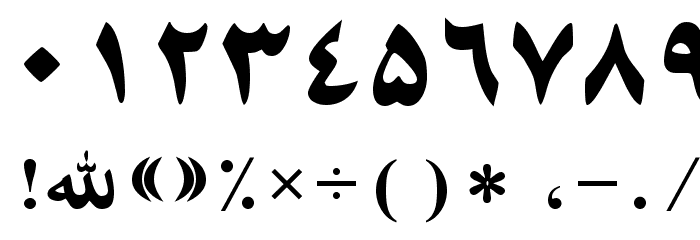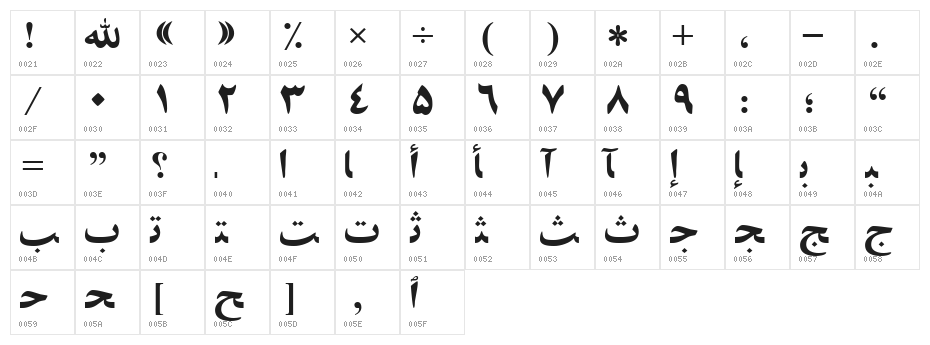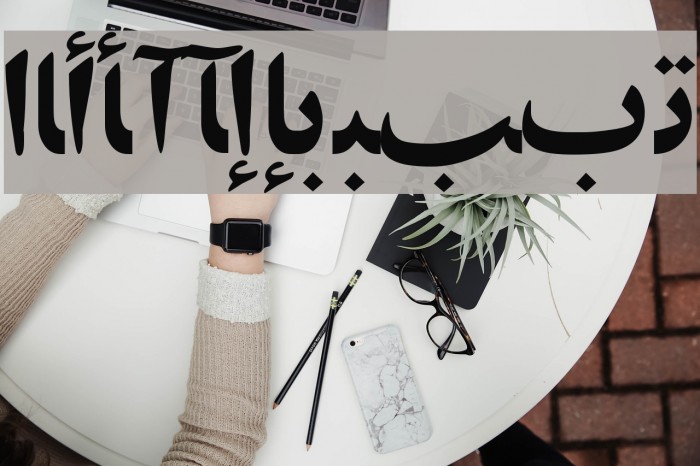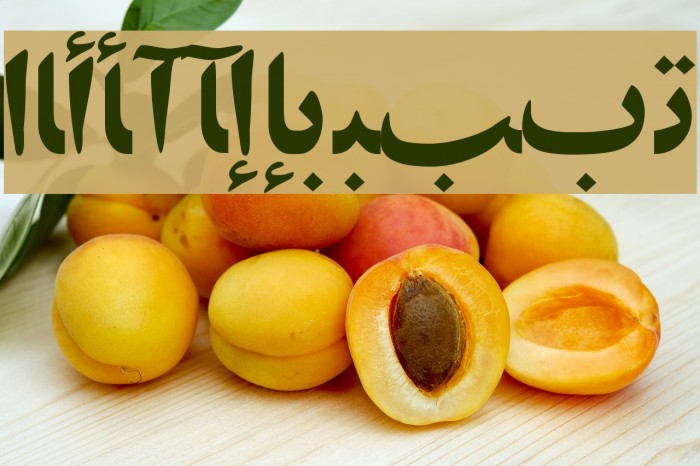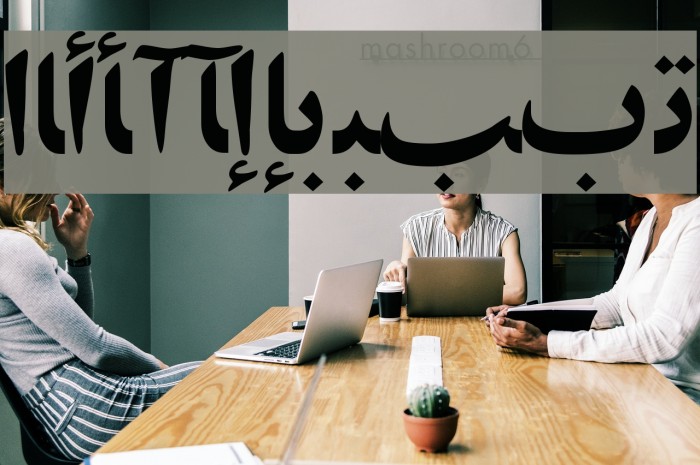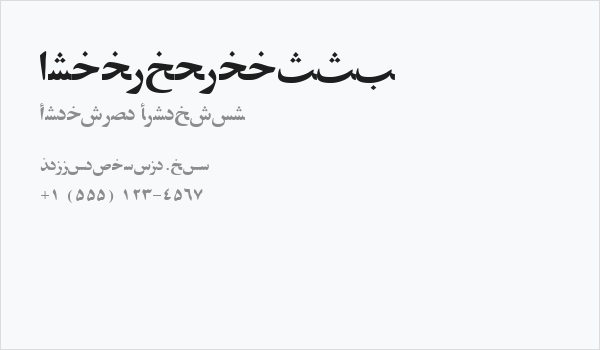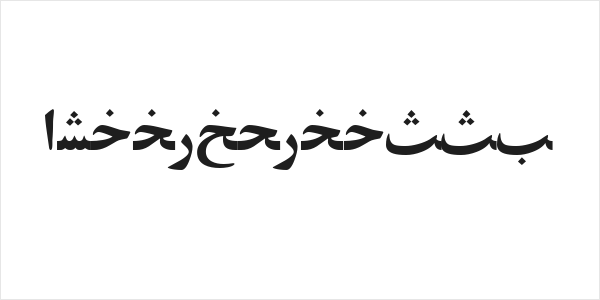
ArabicZibaSSK Font
ArabicZibaSSK Description
This font exhibits a bold and dynamic style with a strong presence. The characters are designed with thick strokes and a high contrast between thick and thin lines, giving it a dramatic and impactful appearance. The script is fluid and expressive, with a modern twist on traditional Arabic calligraphy. The numerals and special characters maintain the same boldness, ensuring consistency across all elements. This font is suitable for creating eye-catching headlines and logos, where a strong visual impact is desired.
| Proposed Projects | Ideal for branding, advertising, and editorial design where a strong and modern Arabic typeface is needed. |